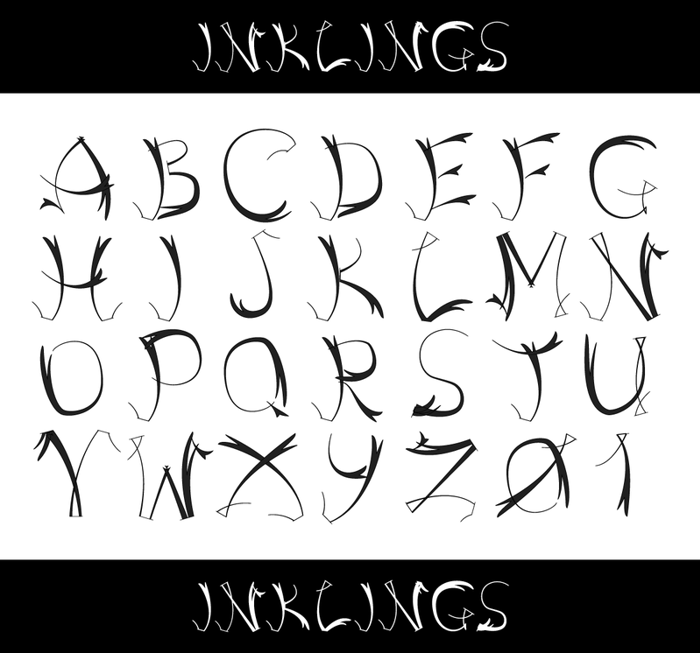
Inklings Font
This is a prototype font for an upcoming cartoon project.
Shame to admit but I completely forgot Tolkien's writing club at Cambridge. I can't deny Tolkien was inspiration for some of my other work - but not typography, at least not at this point. This was one my first fonts and it's more or less my freehand corrected in Illustrator. Updated version coming soon! Cheers!
I really like this design. Please consider making a complete set with lower case, numbers, diacriticals, and punctuation.
Just updated with basic punctuation. Cheers!
Groovy! Is the name just a coincidence, or did you deliberately name it after Tolkien & pals' writing club at Cambridge?
I'd like to see a version with punctuation, etc.